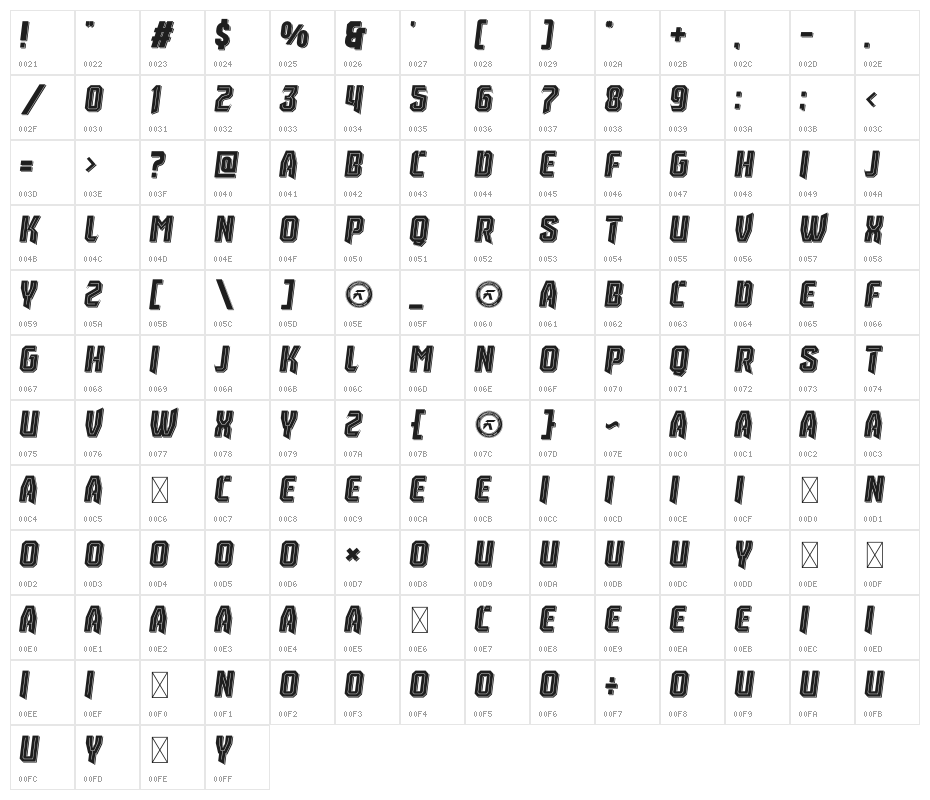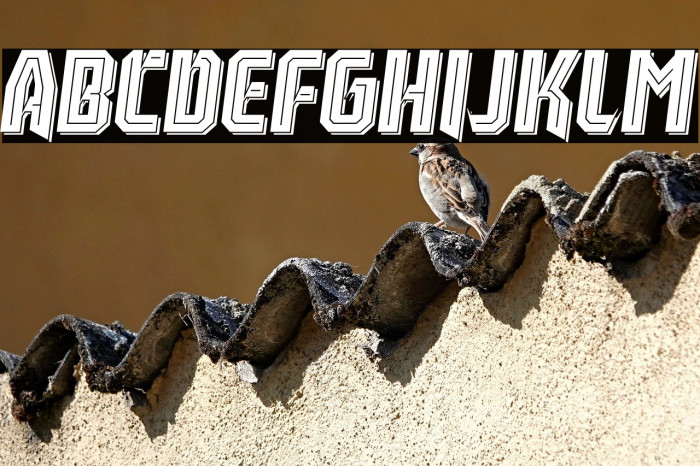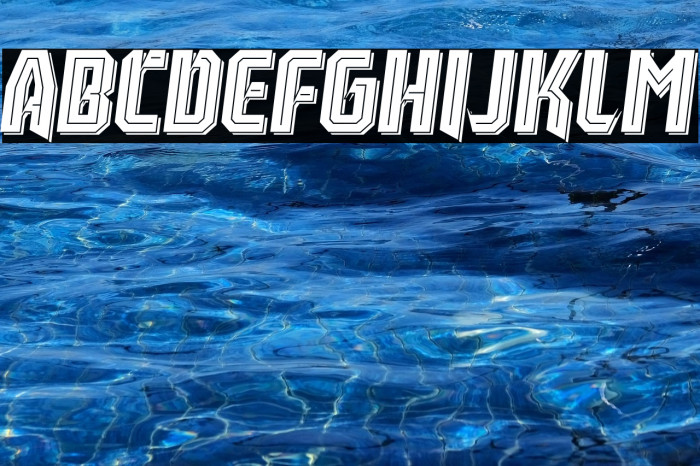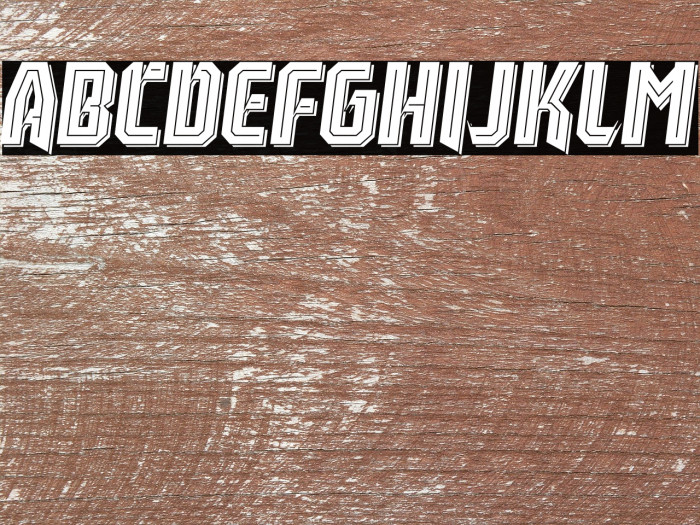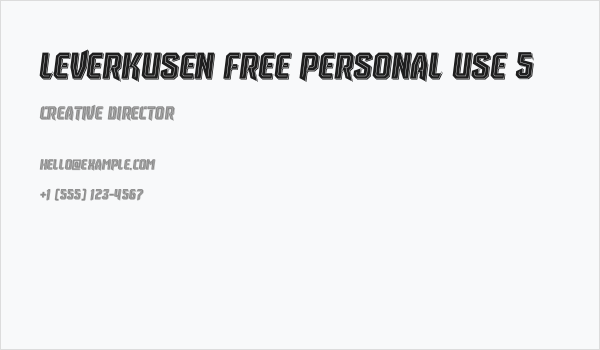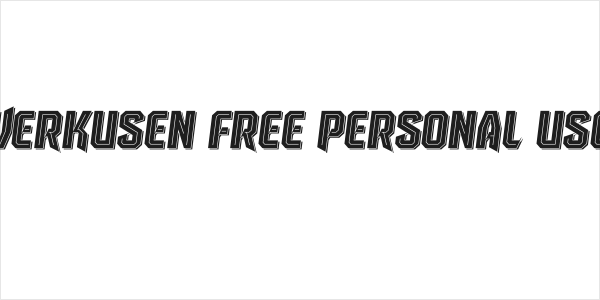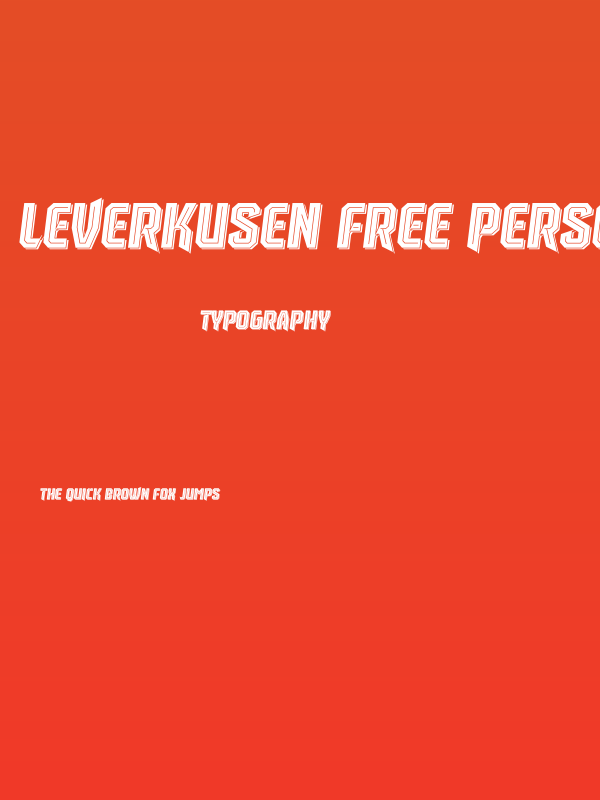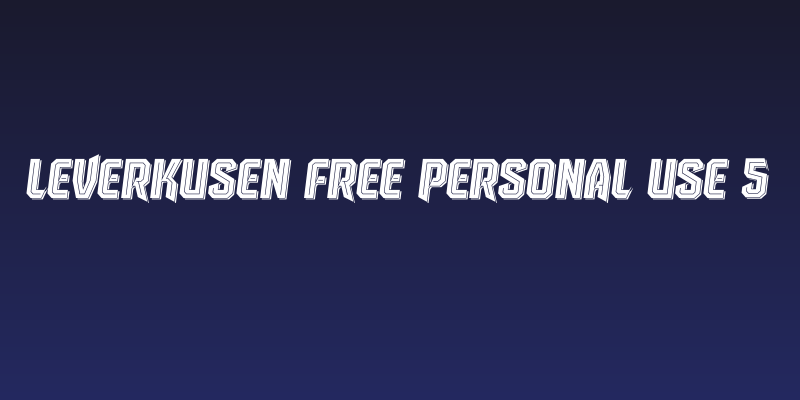
Leverkusen Free Personal Use 5 Font
Leverkusen Free Personal Use 5 Description
This font features a bold, three-dimensional design with a strong, impactful presence. The characters are outlined with a thick black shadow, giving them a striking, layered appearance. The uppercase and lowercase letters maintain a consistent style, with sharp angles and geometric forms that convey a sense of modernity and strength. The numbers and special characters follow the same design principles, ensuring uniformity across all glyphs. This font's unique style makes it ideal for attention-grabbing headlines and creative projects.
| Proposed Projects | Ideal for posters, logos, branding, and any design project requiring a bold statement. |